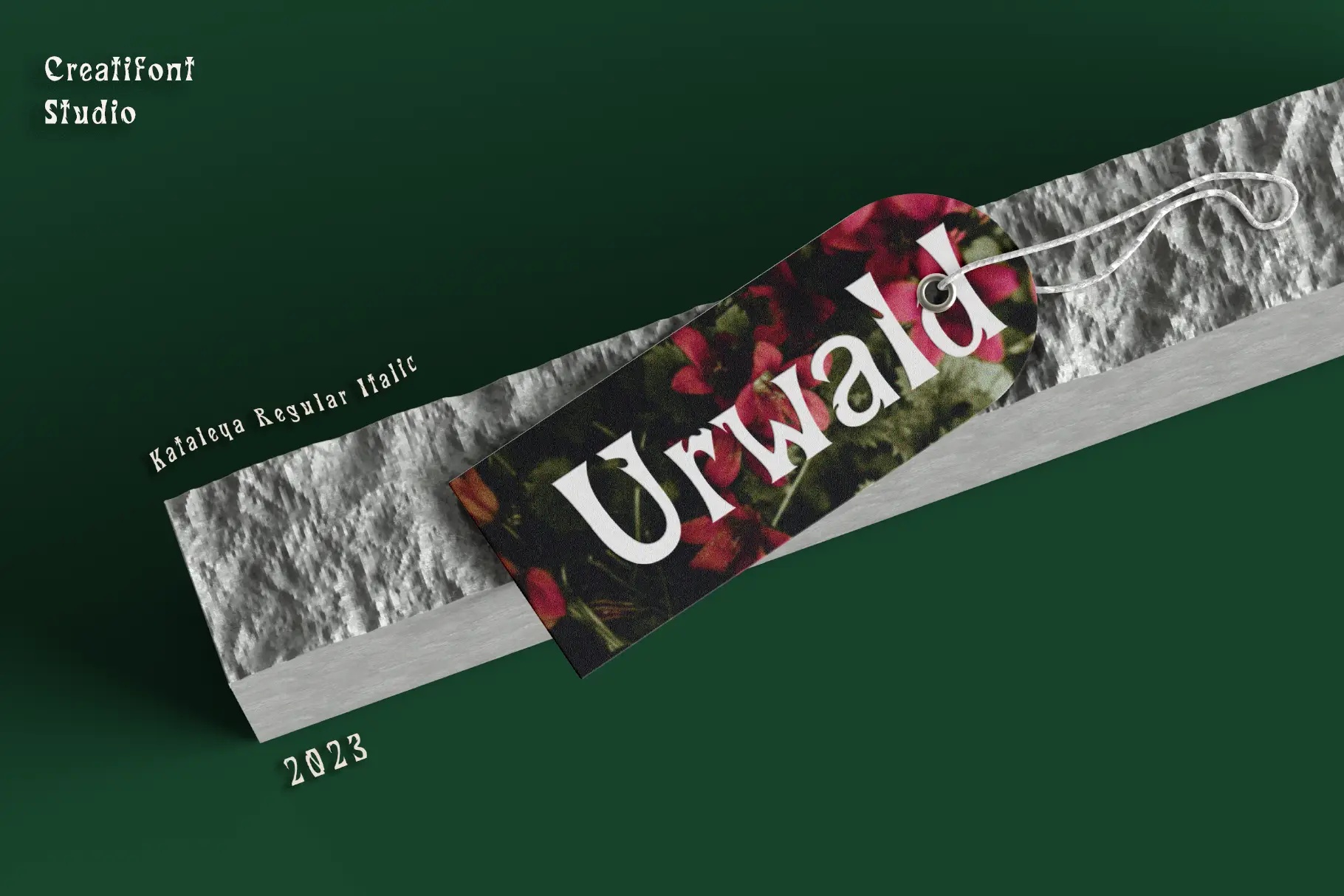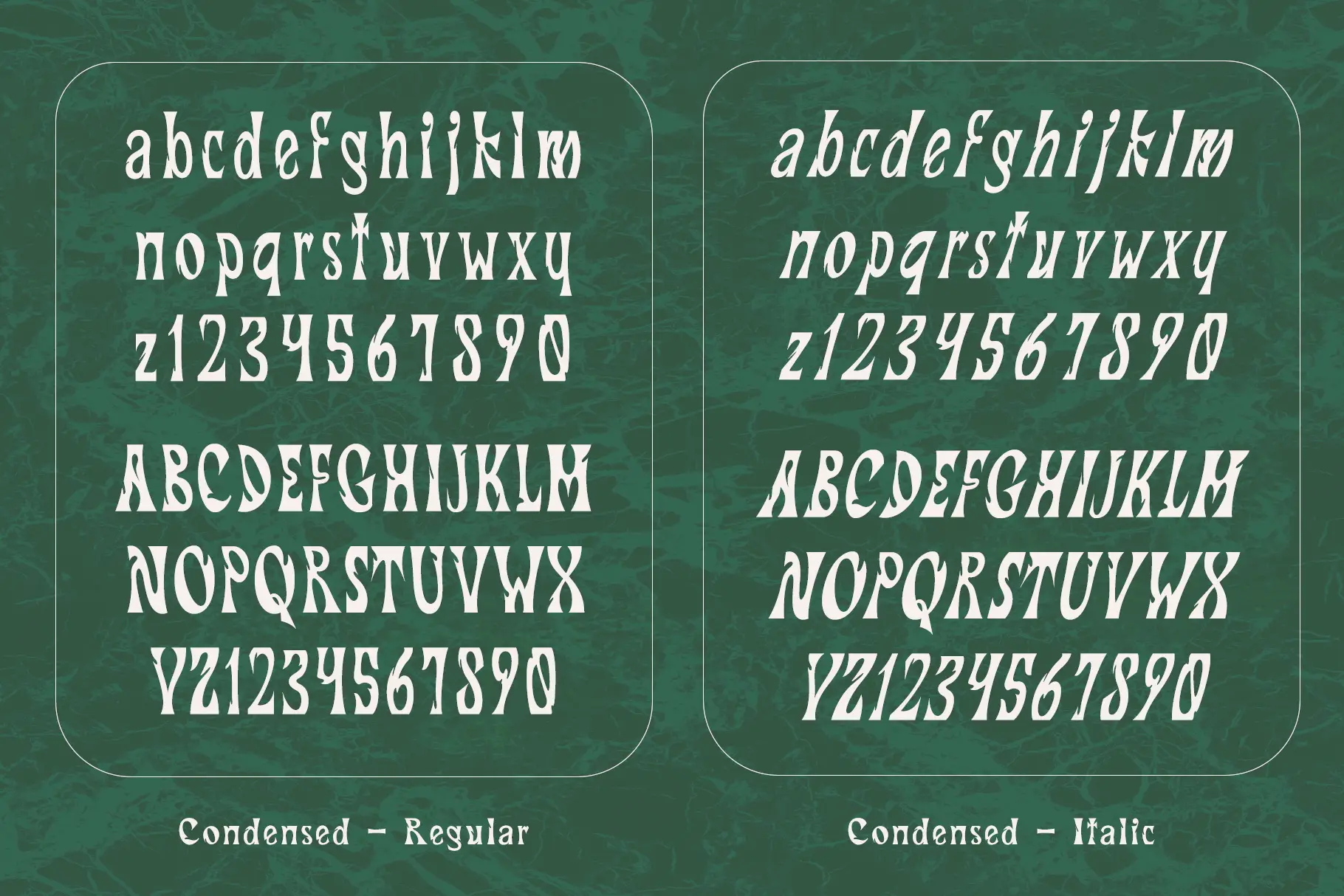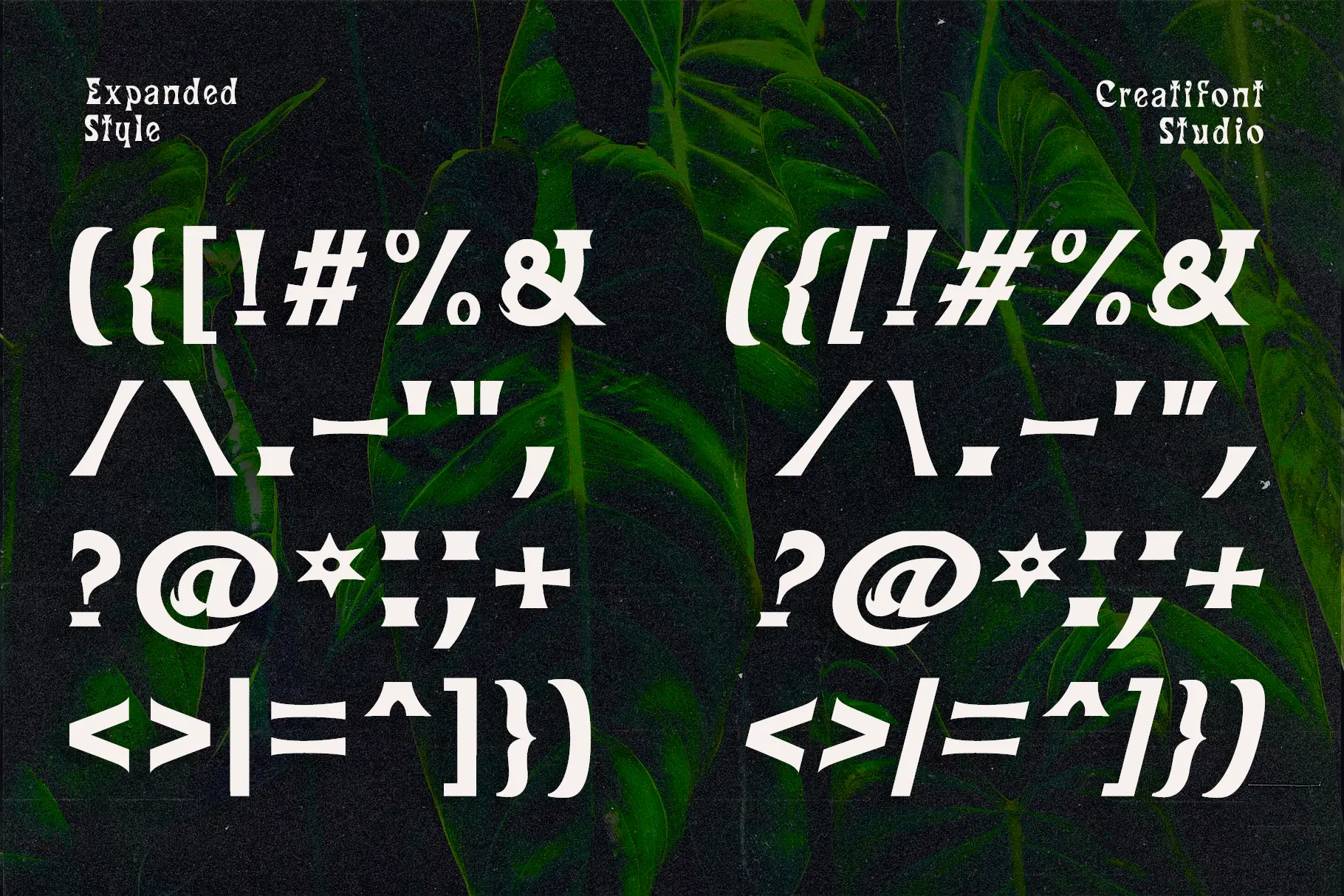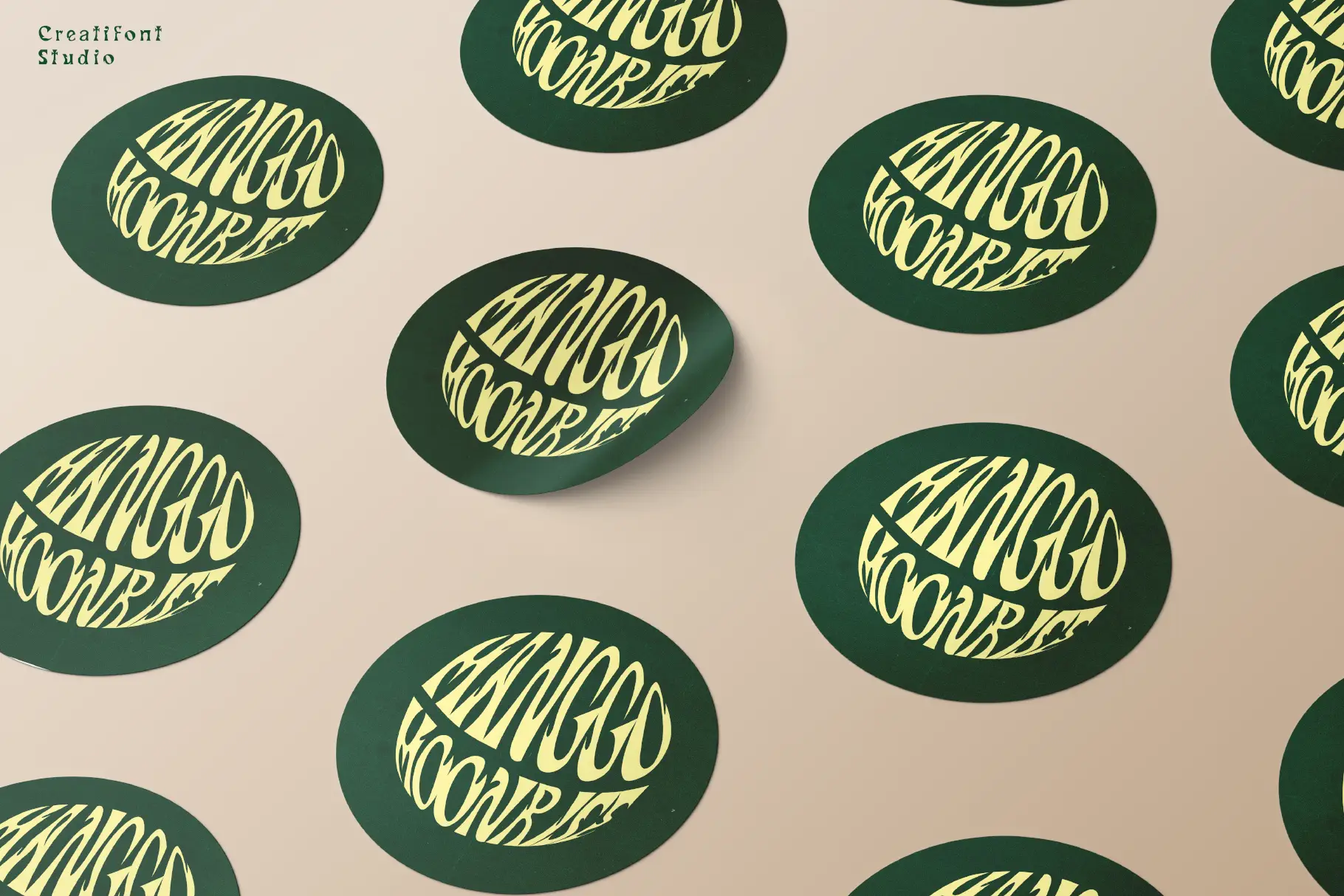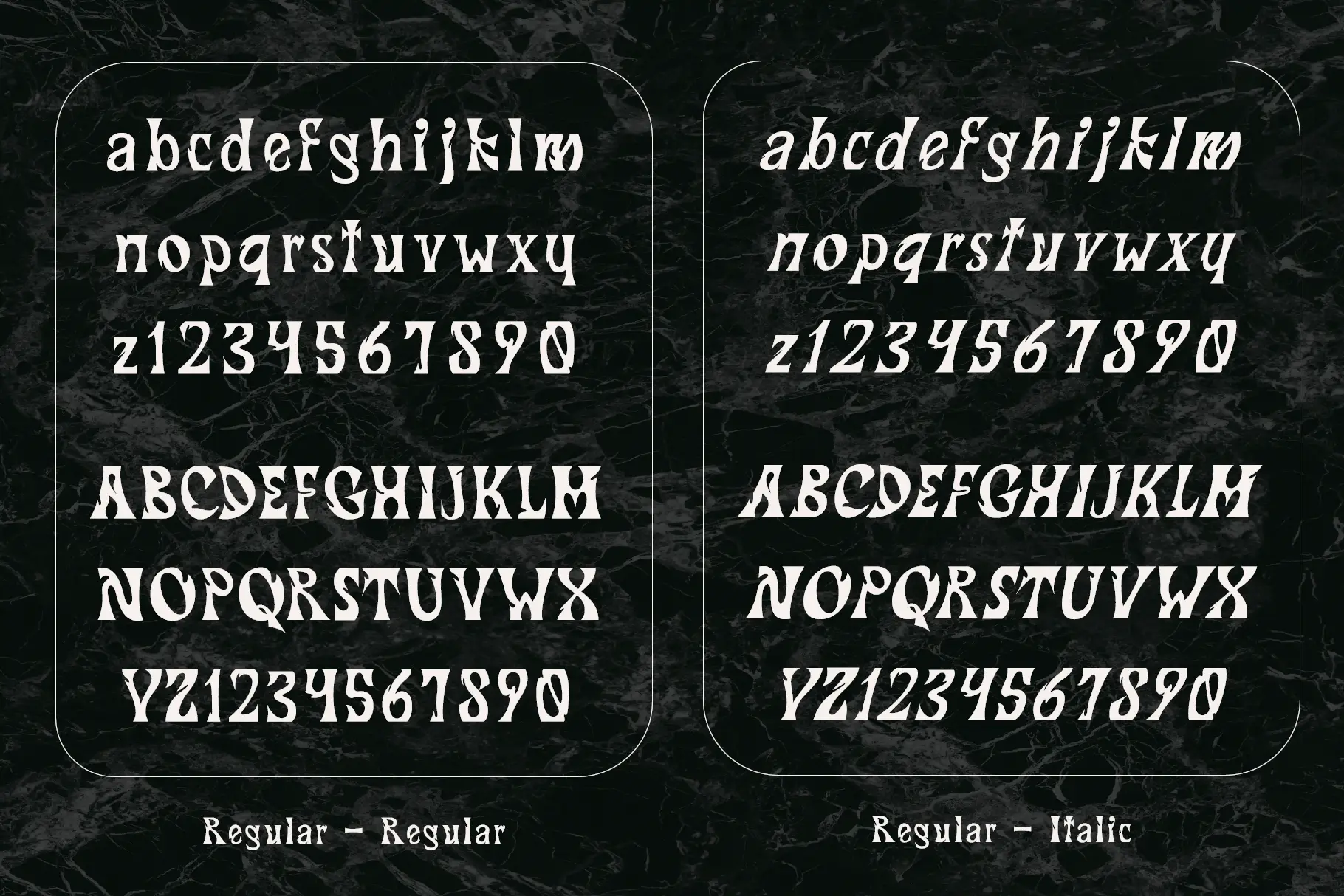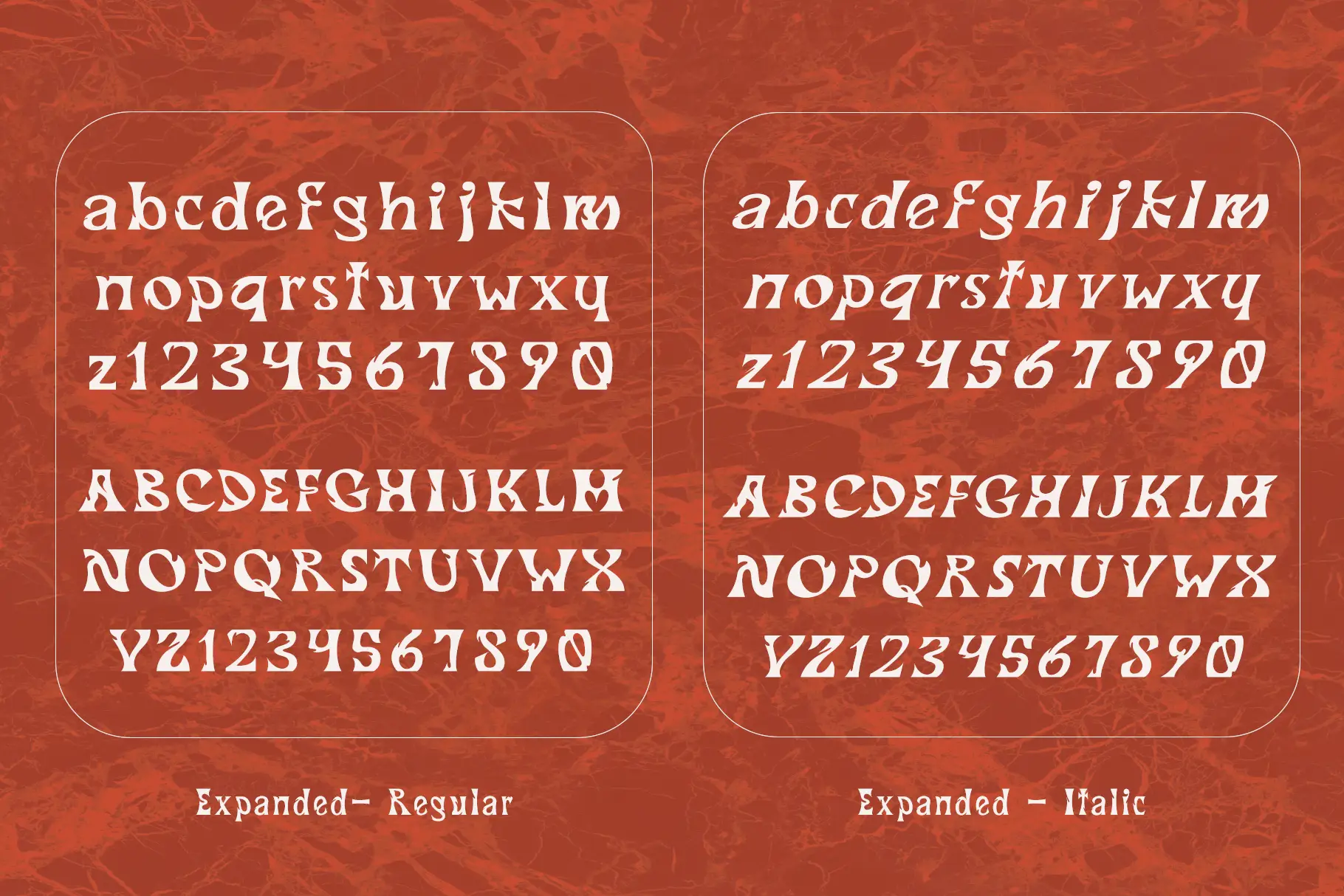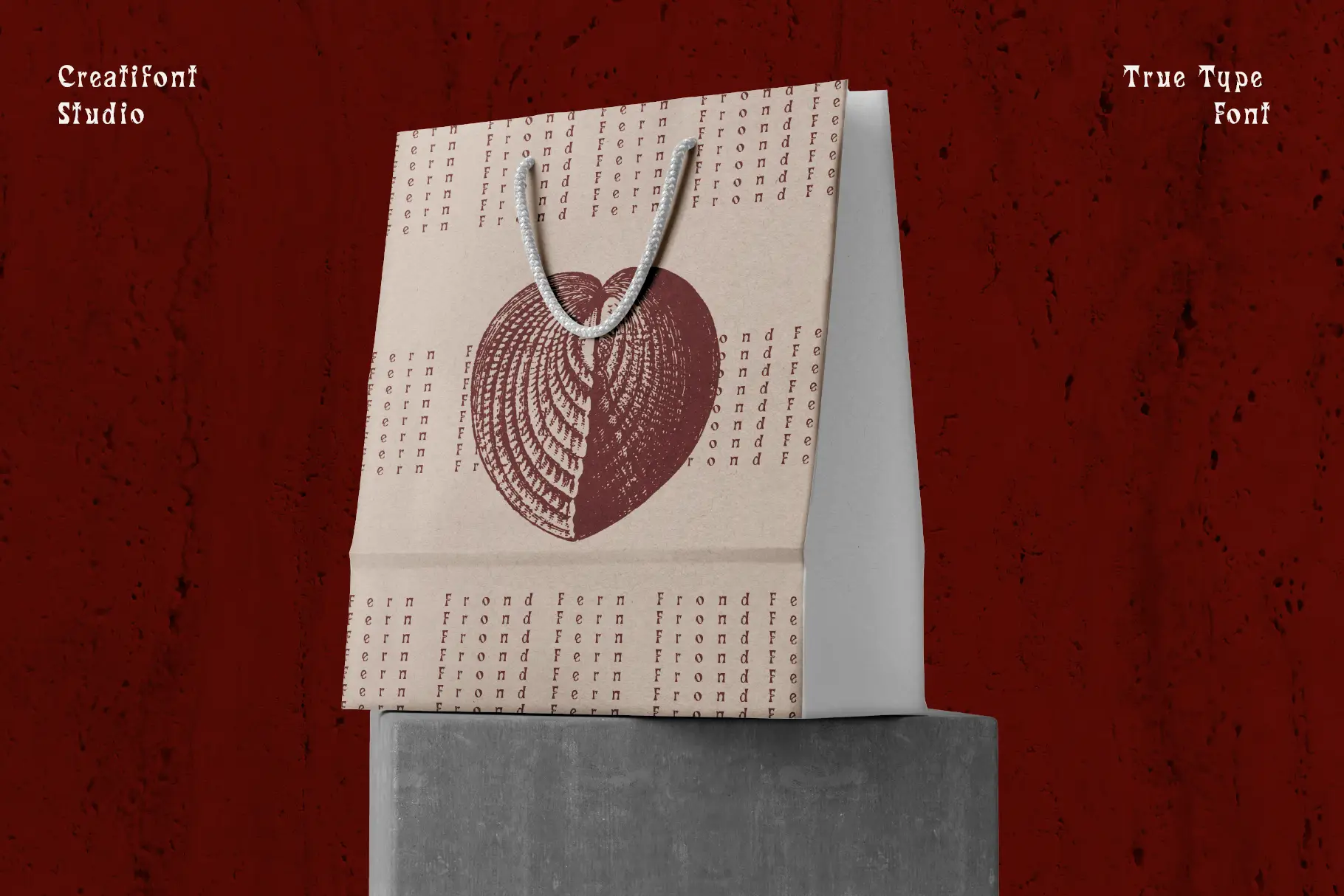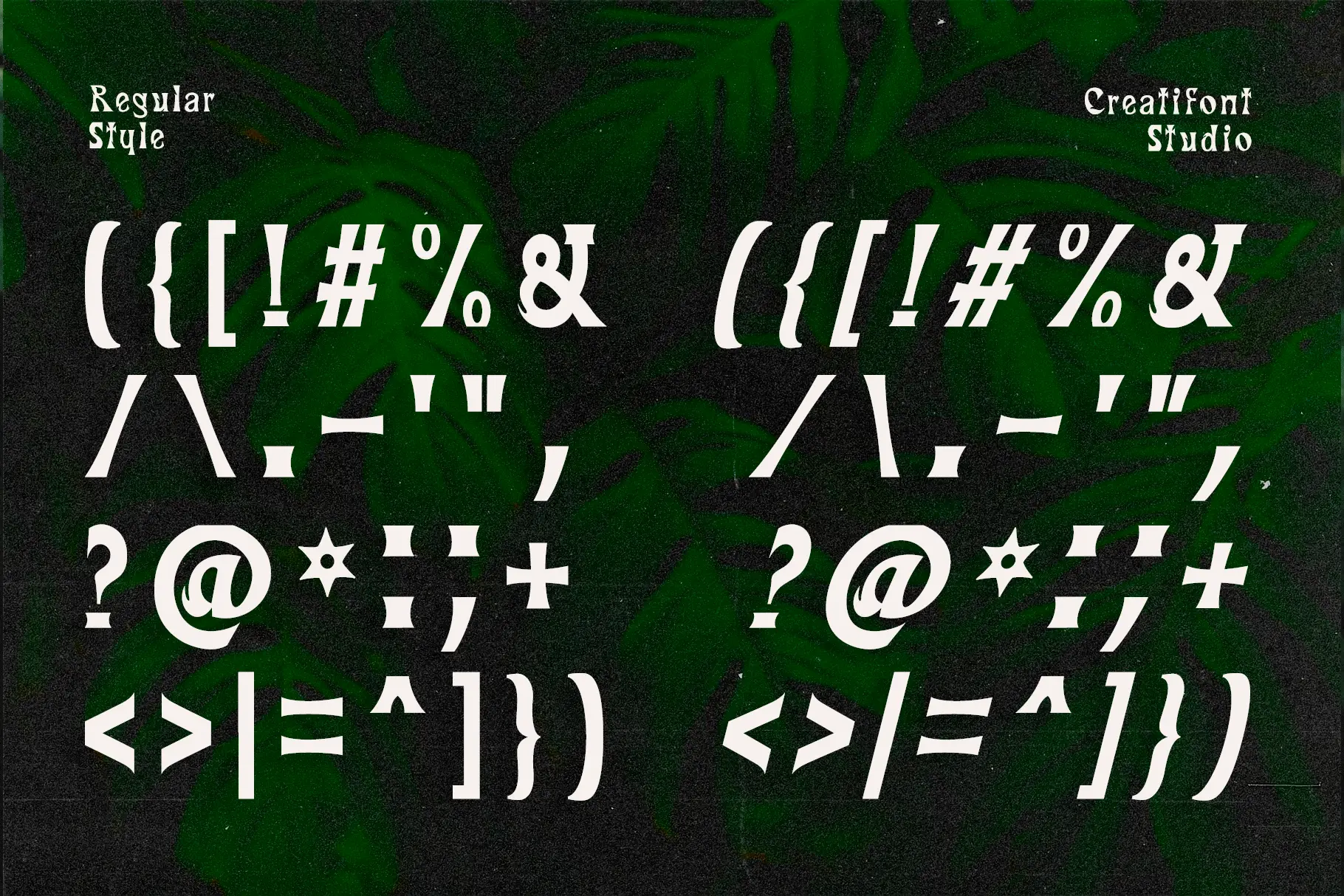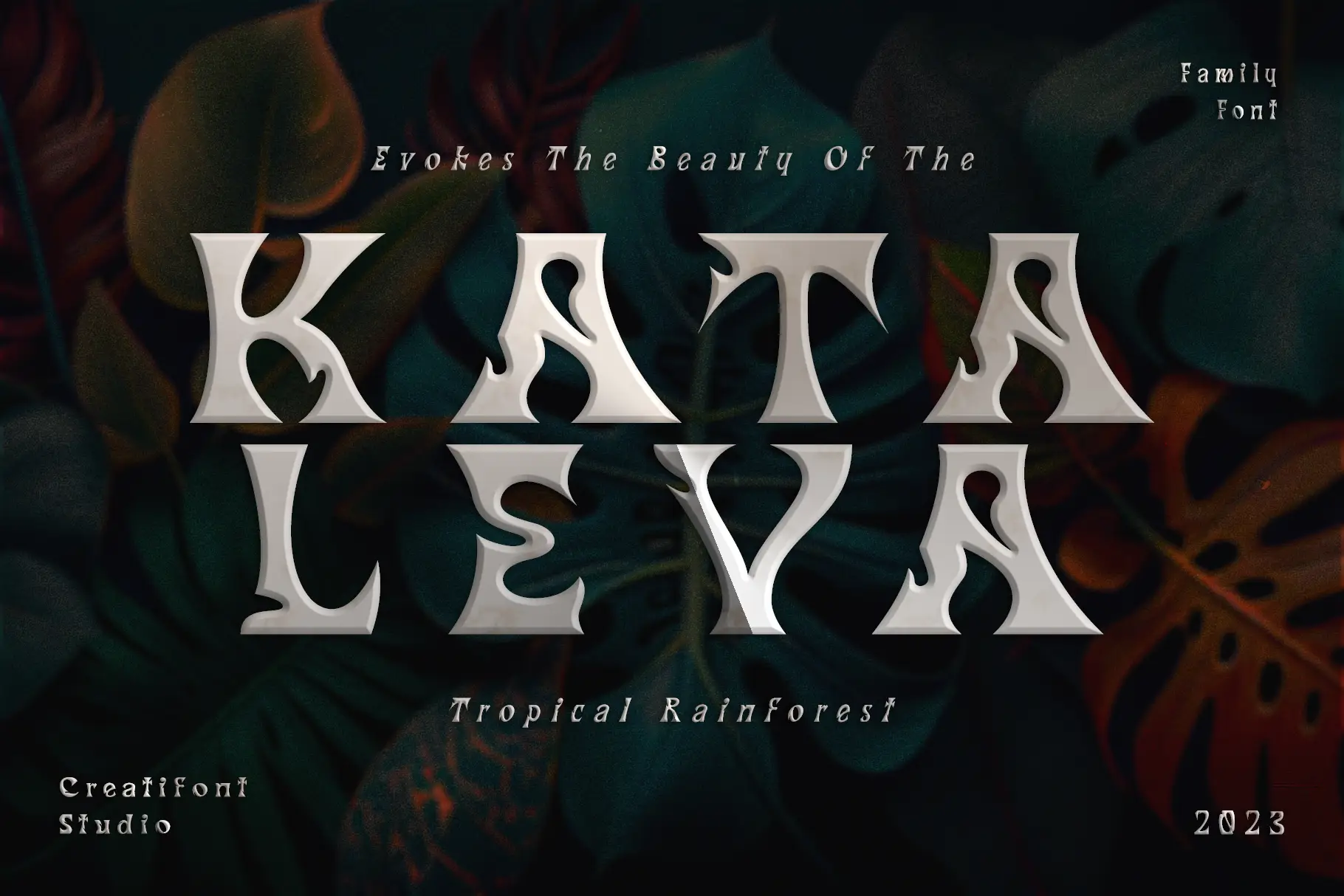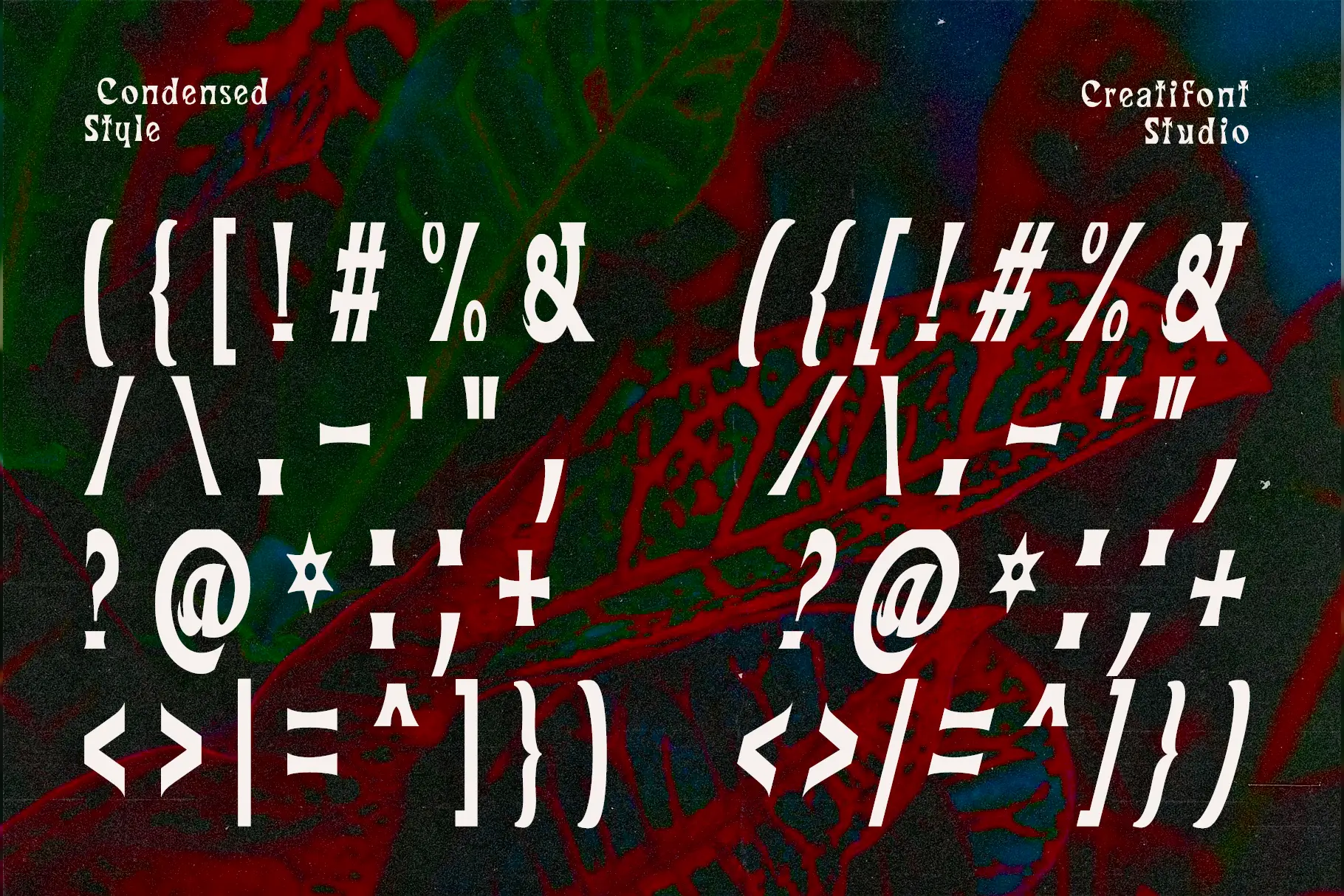
Kataleya is a striking display font designed to make a bold statement in any project. With its unique character shapes and elegant curves, this font is perfect for creating eye-catching headlines, logos, and branding materials. Its distinctive style ensures that your text stands out, whether in print or digital formats.
• Style: Display
• Weights: Regular
• Ideal for branding, logos, and promotional materials.
• Perfect for web design, social media graphics, and print projects.
• Use in large sizes for maximum impact.